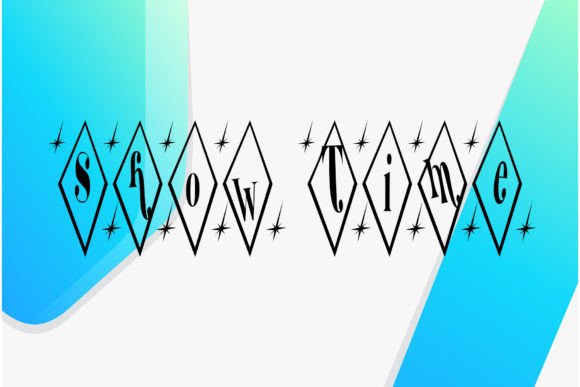
Unleash the captivating charm of Show Time, a display font family brimming with personality and flair. Dive into the world of cinematic storytelling and let your imagination run wild with this font, meticulously crafted to elevate your movie subtitles to new heights of brilliance.
Picture this: a captivating movie scene unfolds before your eyes, enhanced by the vibrant and playful Show Time font. Each letter dances across the screen, carrying the weight of emotions, adding a layer of depth and immersion that captivates your audience. With Show Time, your subtitles become more than just words; they become an integral part of the cinematic experience.
Show Time's unique and whimsical design adds a touch of magic to your creative projects. Its quirky charm breathes life into your designs, making them stand out from the mundane. Embrace the boundless possibilities of Show Time and let your creativity soar as you craft eye-catching posters, captivating social media posts, and stunning website designs.
With Show Time, you'll never be short of inspiration. Its versatility knows no bounds, adapting seamlessly to a myriad of artistic expressions. Whether you're a seasoned designer or just starting your creative journey, Show Time will accompany you every step of the way, transforming your ideas into captivating realities.
Don't settle for ordinary fonts; embrace the extraordinary with Show Time. Its unique character will add a spark of originality to your projects, leaving a lasting impression on your audience.